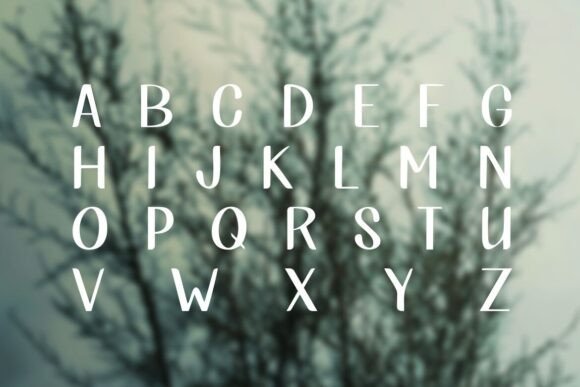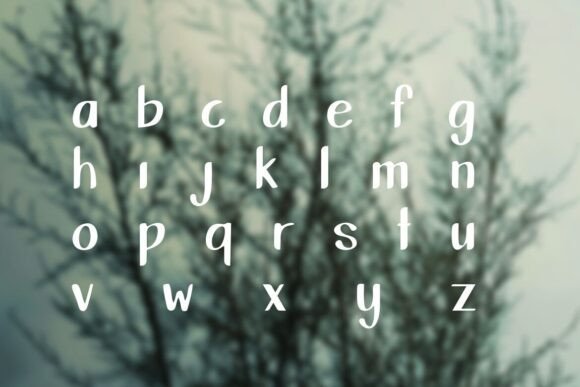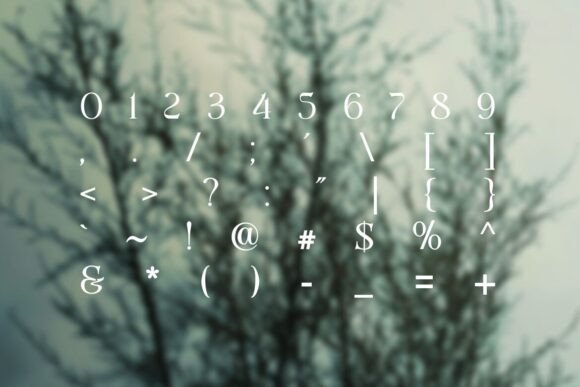
Introduction to Shington Font
Do you remember the moment when you stumbled upon the perfect font for your project? The one that made your design pop, and you couldn’t wait to see it come to life? For many designers, that moment is just around the corner with the introduction of the Shington Font.
As a free download, this high-quality, handwritten font offers endless possibilities for your creative project. Its natural and unique style makes it incredibly fitting to a wide range of designs, from elegant invitations to playful social media graphics. With a transparent background, the Shington Font seamlessly blends into any design, making it a valuable resource for designers of all levels.
Whether you’re working on a personal or professional project, the Shington Font is sure to inspire your creativity and bring your vision to life.
Key Features of Shington Font
- Designed to be versatile and adaptable, making it suitable for a wide range of creative projects, from branding to editorial design.
Honest Review: Shington Font
As a designer, I’m always on the lookout for high-quality design resources that can elevate my creative projects. Recently, I stumbled upon the Shington Font, and I’m excited to share my honest review with you.
- ✨ High-quality font with a unique and modern design.
- ⚠️ Limited character set, which may not be suitable for projects requiring extensive typography.
- ⚠️ Not as versatile as some other fonts, which may limit its use in certain design contexts.
Overall, I’m impressed with the Shington Font’s unique design and high-quality rendering. While it has some limitations, it’s a great resource for designers looking for a modern and stylish font for their creative projects.
Tips for Getting the Most Out of Shington Font
Experiment with different font sizes and styles to create a unique visual effect. Combine Shington Font with other design elements, such as images and graphics, to add depth and interest to your design. Use a transparent background to create a clean and modern look.
Shington Font is a versatile design resource that can be used in a variety of creative projects, including logos, brochures, business cards, and presentations. It’s also a great choice for web design and digital marketing materials.
Comparison to Shington Font: The Great Vibes Font is more elegant and refined compared to Shington Font, which has a more casual and playful feel. While Shington Font is great for casual designs, Great Vibes Font is better suited for more formal and creative projects.